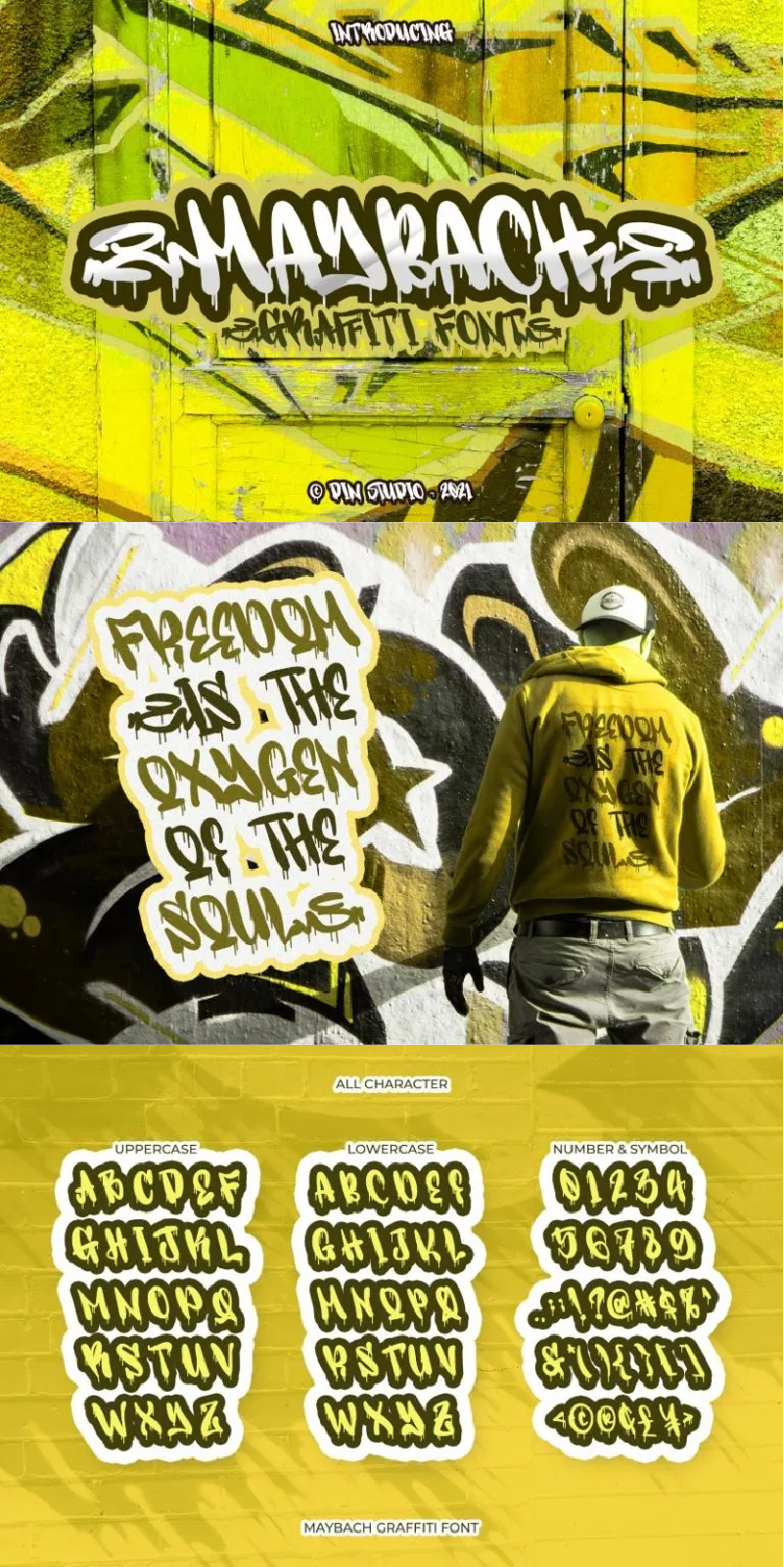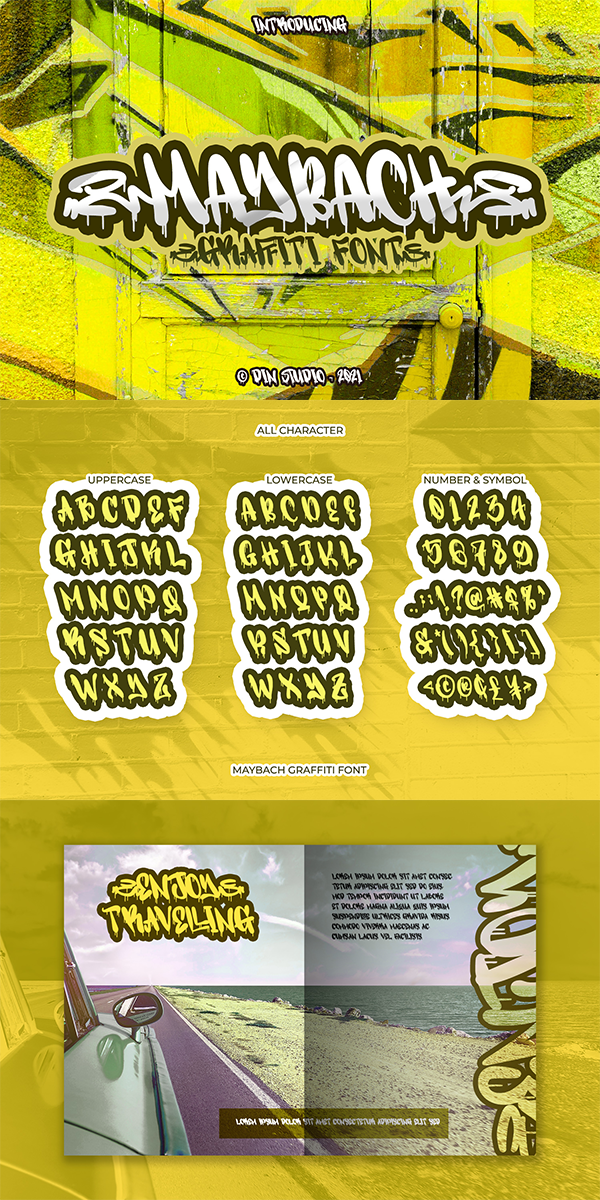
Maybach Font
About Maybach
Maybach is a typeface that comes from a captivating uppercase font design combined with a cute bubble aesthetic. This typeface with artistic style looks very interesting for loads of different projects and promotions. A great all-in-one package for your logo, poster, t-shirt, branding, and advertisement needs.